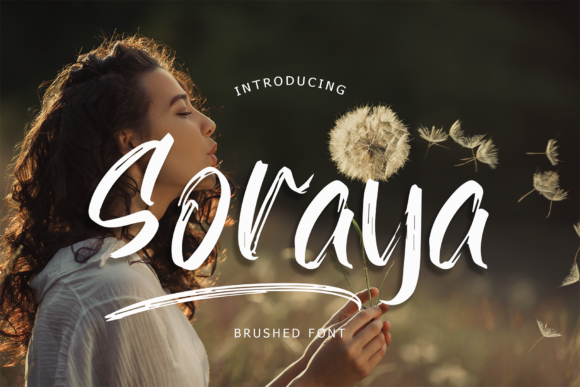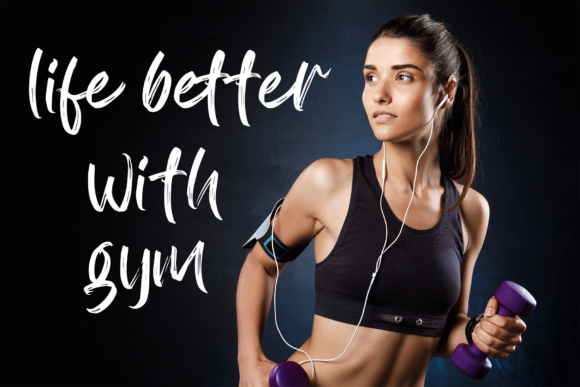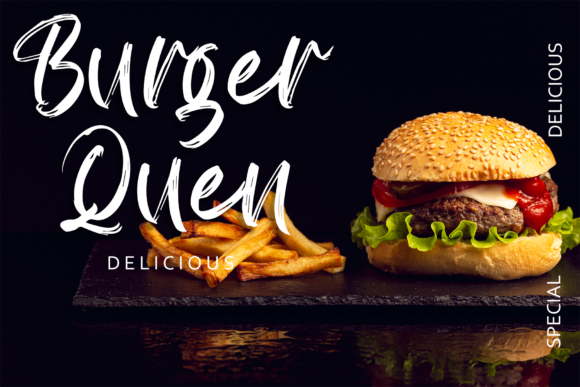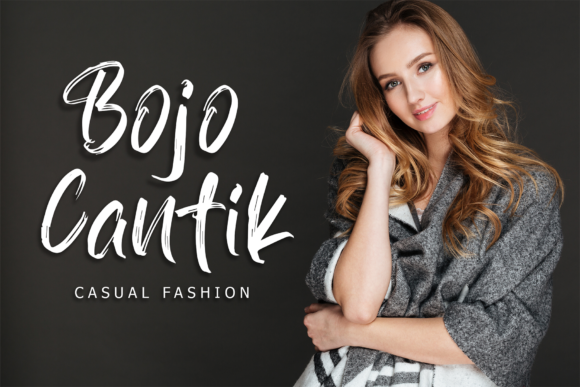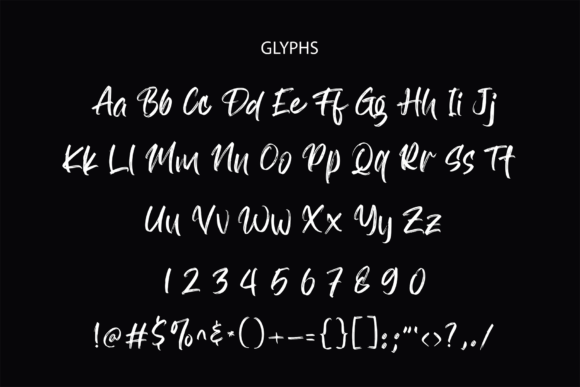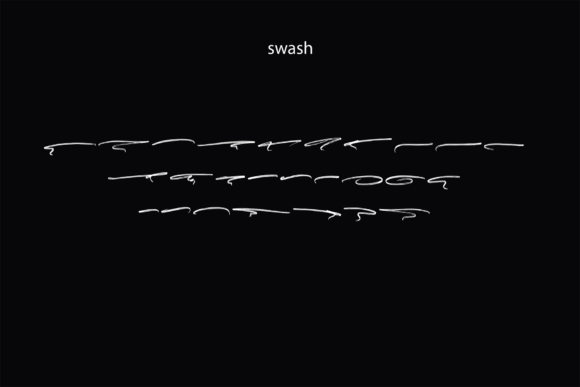
About Soraya Font
“Soraya” is a font that encapsulates the beauty of simplicity and relaxation, crafted with the delicate strokes of a brush pen. Its effortless elegance invites you to immerse yourself in its versatile style and harness its potential to bring your creative visions to life. From exquisite wedding invitations to captivating social media posts, this font transforms every project into a masterpiece.
The essence of “Soraya” lies in its handwritten charm, a reflection of the fluid motion of brush strokes. Its relaxed demeanor adds a touch of serenity to every letterform, making it the perfect choice for projects that aim to convey a sense of ease and beauty. Whether you’re designing wedding invitations that evoke romance, crafting stationary art that delights the senses, or curating eye-catching social media posts, this font adapts to your vision with grace.
As you weave “Soraya” into your designs, you’ll find that its versatility becomes a wellspring of creative inspiration. Its ability to effortlessly transition from one context to another ensures that your projects maintain a consistent and enchanting aesthetic. Be it the elegance of a wedding invitation or the visual impact of a social media post, the font’s adaptability guarantees that your message is communicated with poise and allure.
“Soraya” stands as an artistic companion, a tool that empowers you to create visuals that resonate with elegance and relaxation. Whether you’re a seasoned designer or embarking on a creative endeavor for the first time, this font amplifies your artistic voice and transforms your ideas into expressions of beauty. Fall in love with the versatility and charm of “Soraya,” and let it become the bridge that connects your creativity with the hearts of those who encounter your designs.